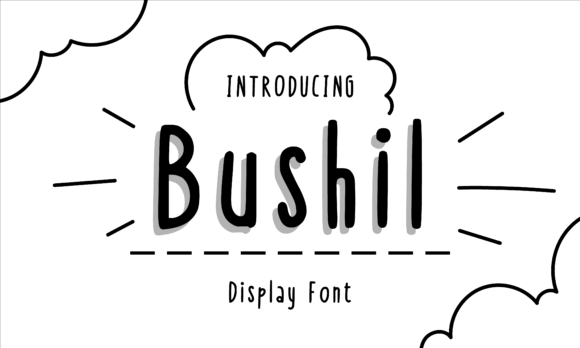
The Delightful World of Bushil Font: A Designer’s New Best Friend
I’ll never forget the moment I stumbled upon Bushil Font while working on a comic project for a client. I had been searching for the perfect font to bring the story to life, but everything I found seemed either too bland or too over-the-top. That’s when I discovered Bushil Font, and it was love at first sight! ✨ This adorable font has since become a staple in my design toolkit, and I’m excited to share its charm with you.
An Honest Review: The Good and the Quirky
So, what makes Bushil Font so special? Let’s dive into the good stuff and a few quirks I’ve encountered.
- ✅ Cuteness Overload: Bushil Font is incredibly cute, making it perfect for projects that require a playful touch, such as comic books, children’s books, or even branding for kids’ products.
- ✨ Versatility: This font is not just limited to comics; it’s also great for lettering, posters, and any project that needs a friendly, approachable vibe.
- 💡 Ease of Use: Bushil Font is easy to read and works well in both digital and print formats.
While Bushil Font is amazing, there are a few things to keep in mind:
- 🤔 Limited Formality: Bushil Font is playful and casual, which means it might not be the best choice for formal or professional projects that require a more serious tone.
- ⚠️ Glyph Limitations: Some users have noted that the font could benefit from more glyphs, especially for non-English characters. However, this is a minor quibble and doesn’t detract from the font’s overall usefulness.
The Story Behind Bushil Font
The origins of Bushil Font are a bit mysterious, but it’s said to have been created by a designer with a passion for comics and playful typography. The goal was to craft a font that could bring stories to life with a friendly, approachable aesthetic. Today, Bushil Font is cherished by designers worldwide for its unique charm and versatility.